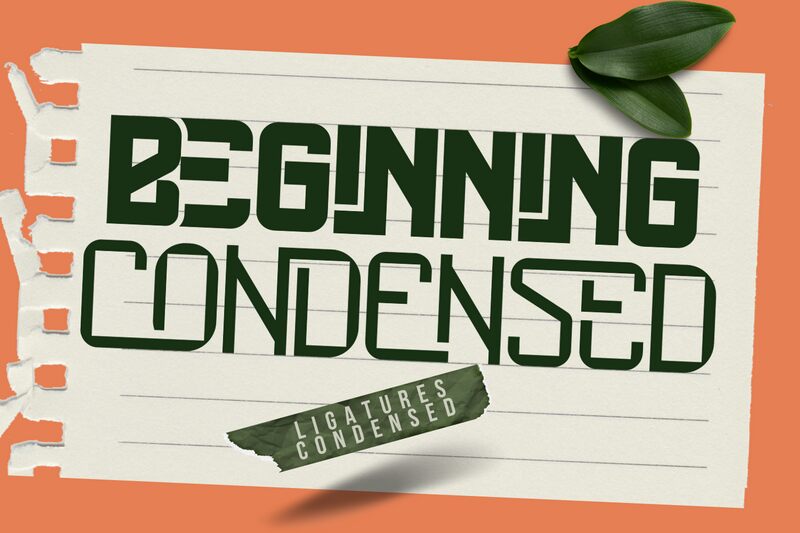
Beginning font family by 177Studio has simple sleek characters with smart proportions for a harmonious minimalist textual tone. Contact points and element height were practiced as a science for maximum typical effect. Each letter focuses on its archetype without excessive overthinking, although other small details enhance the effort put into design features. Connected rectangular shapes with perfectly rounded tips make up letter corners and terminations. Find both letters and numbers as well as a large number of other characters in the two fonts available.
Since application fields for a sans serif font usually contain a large number of sectors, the fonts in this pack turn out to be very useful and handle multiple jobs. Use them for app interface and website typography in titles, headings, and parcel of the content. Instantly enhance your games and animation graphic interface with futuristic content that supports and presents your design. Advertising and promotional jobs are always optimized with a relevant font since readers are the usual and ideal candidate to focus.